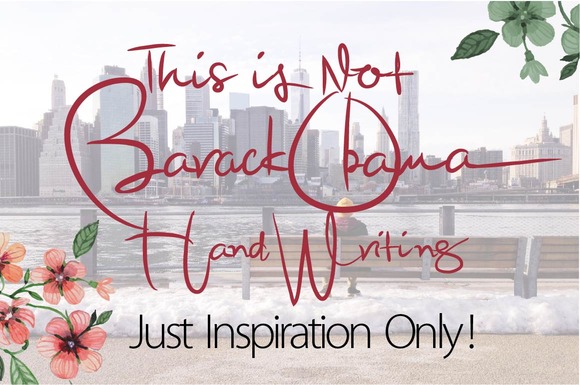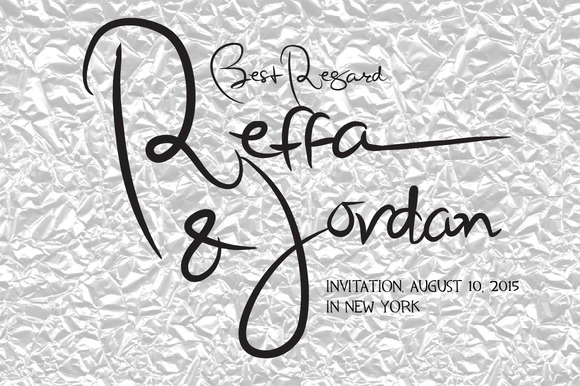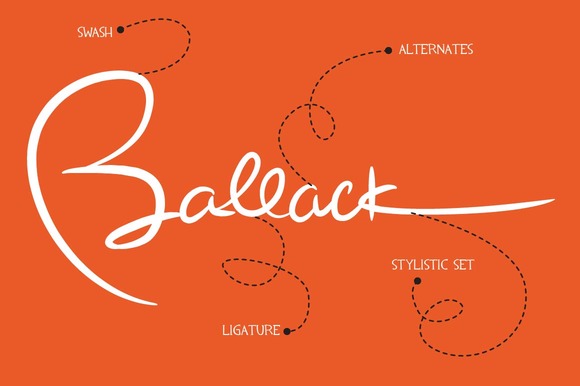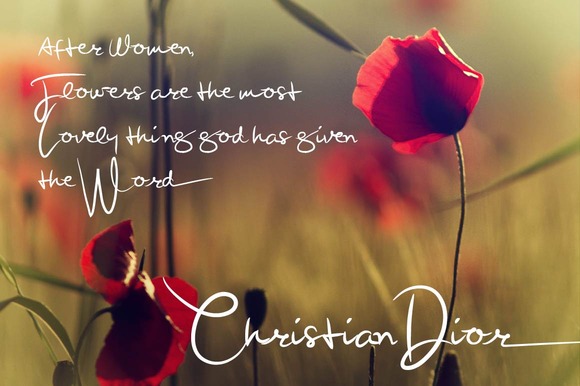
Unlock the Power of Elegance with Beauty Signature Font
As a designer, have you ever been stuck trying to find the perfect font to capture the essence of a project? You scroll through countless options, but none seem to convey the message you want to convey. It’s a frustrating experience that we’ve all been through at some point.
Enter Beauty Signature Font, an elegant typeface that’s inspired by the handwriting of former US President Barack Obama. With its unique, flowing style, this font is perfect for adding a touch of sophistication to your designs. Whether you’re creating headings, logos, invitations, or posters, Beauty Signature Font is a versatile tool that can elevate your work to the next level.
For designers, Beauty Signature Font is a valuable asset that can help you stand out from the crowd and convey your message with style. Its beauty lies not just in its aesthetic appeal, but also in its ability to evoke emotions and create connections with your audience.
Beauty Signature Font Key Features
- Font Family: A luxurious, elegant font designed to add a touch of sophistication to any design project.
- Unique Characteristics: Features a unique blend of cursive and script elements, creating a beautiful and distinctive look.
Beauty Signature Font Review
Overall, I think the Beauty Signature Font is a beautiful addition to any design project, especially those in the beauty and wellness industry. ✨ The font’s elegant and sophisticated feel makes it perfect for high-end brands or spas.
Here are some of the things that really stood out to me:
- ✨ Beautifully crafted ligatures that add a touch of sophistication to the font
- ✨ Wide range of weights and styles to choose from, making it easy to find the perfect fit for your design
- ✨ Great for use in headings, titles, and other display text
However, I did encounter a few limitations:
- ⚠️ The font can be a bit challenging to read at smaller font sizes, so be sure to test it out in different contexts
- ⚠️ Some of the characters may not be supported in certain operating systems or devices
- ⚠️ The font may not be the best choice for body text, as it can be a bit too ornate and difficult to read in large blocks of text
Overall, I think the Beauty Signature Font is a great choice for designers looking to add a touch of elegance to their projects. Just be sure to use it thoughtfully and consider the limitations I mentioned above.
The Beauty Signature Font is ideal for creating elegant and sophisticated designs, such as:
- Branding materials, like logos and business cards
- Special occasion graphics, like birthday and anniversary designs